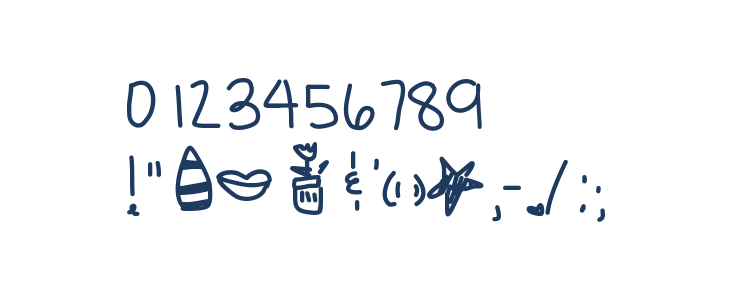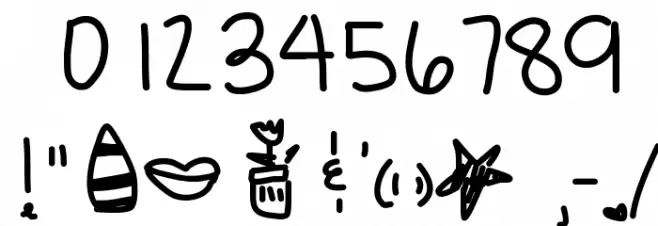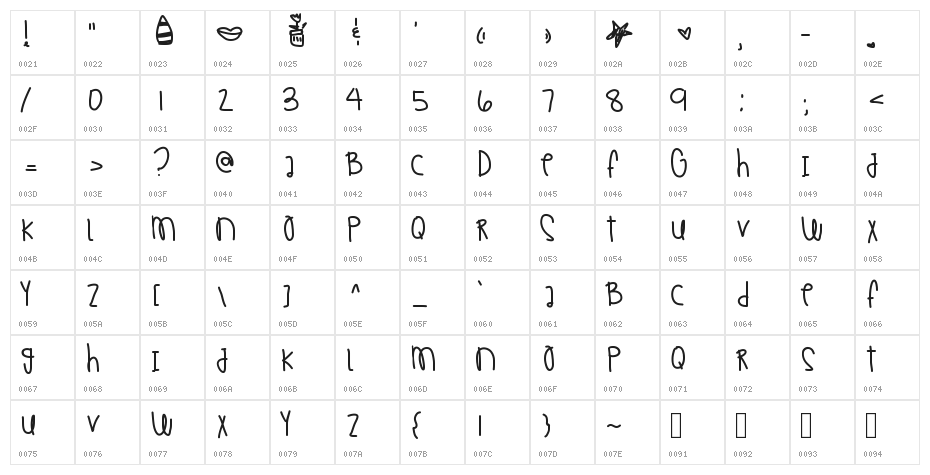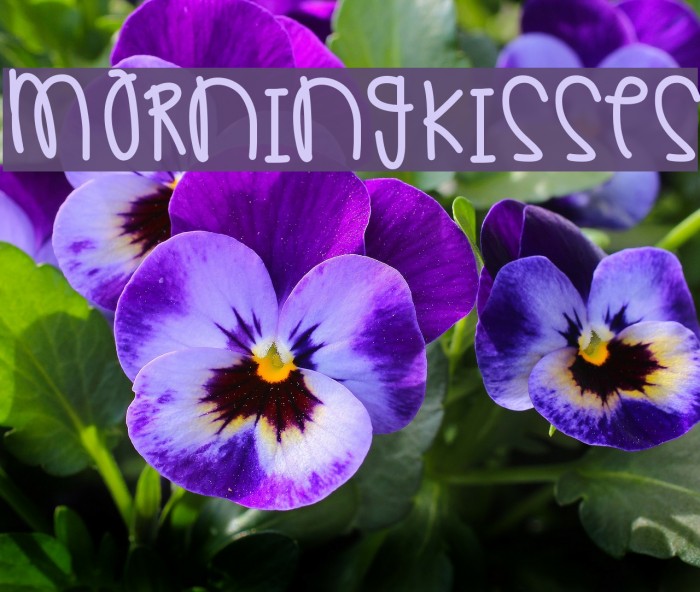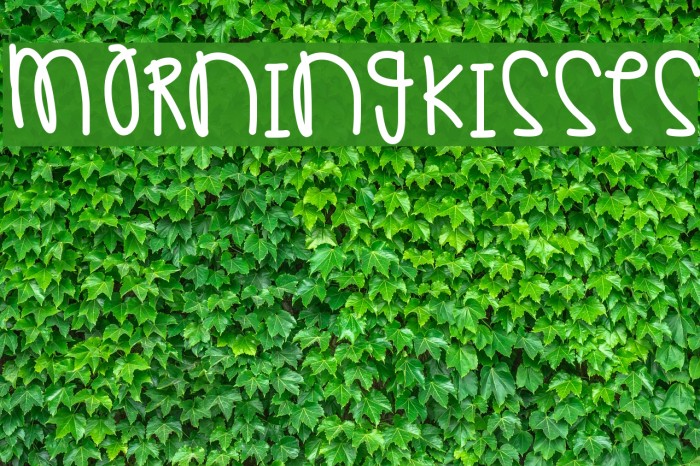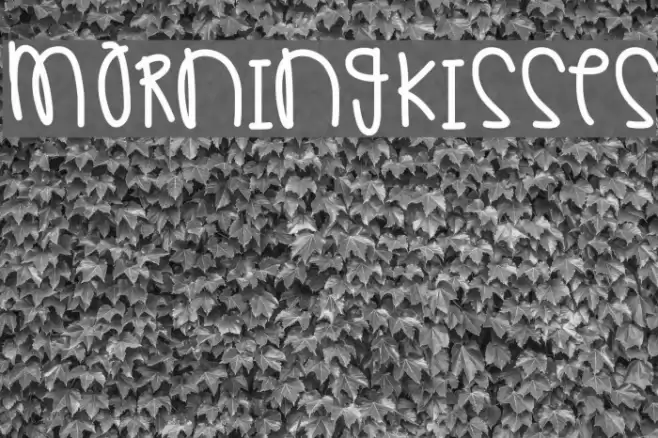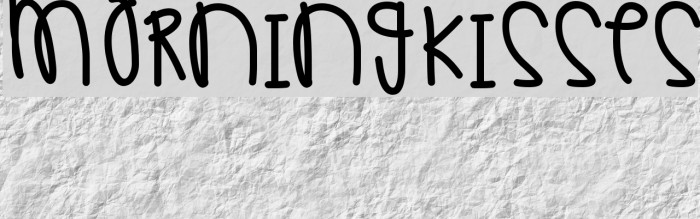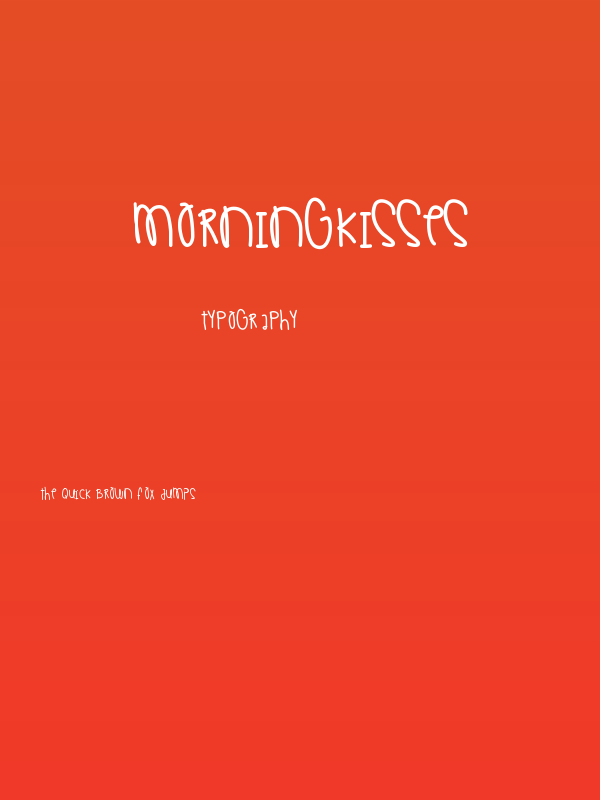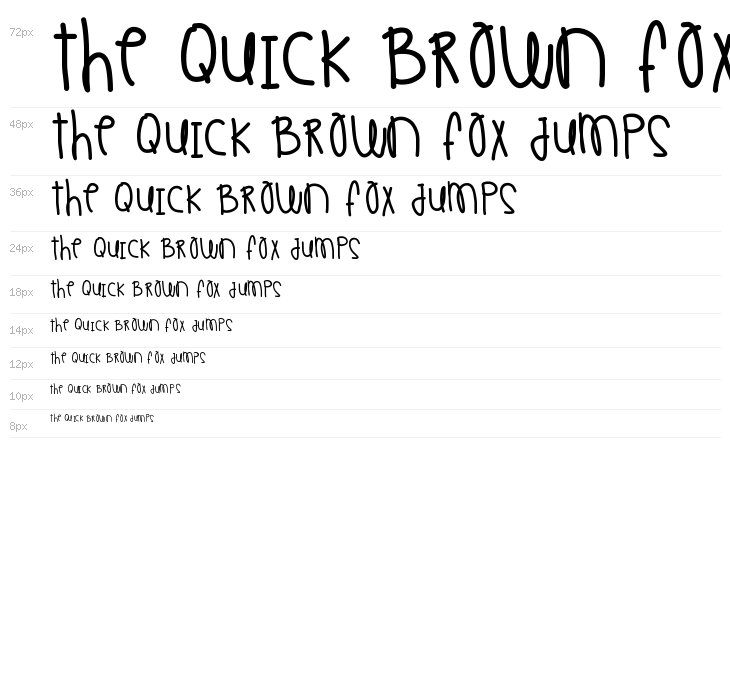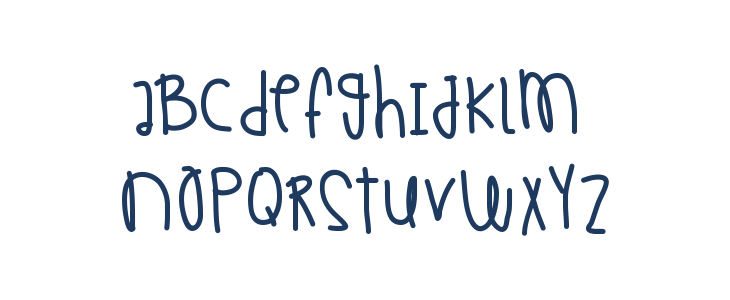
MorningKisses Font
MorningKisses Description
This playful and whimsical font features a handwritten style with a casual and friendly appearance. The characters are slightly elongated with rounded edges, giving them a soft and approachable feel. The uppercase and lowercase letters maintain a consistent flow, while the numbers and special characters add a touch of creativity with their unique designs. The font's informal style makes it perfect for projects that require a personal touch, such as greeting cards, invitations, or children's book illustrations. Its distinct personality shines through with each character, making it a delightful choice for creative endeavors.
| Overall Style | Whimsical |
| Use Case | Creative projects, Invitations, Greeting cards |
| Proposed Projects | Ideal for greeting cards, invitations, children's books, and creative projects. |